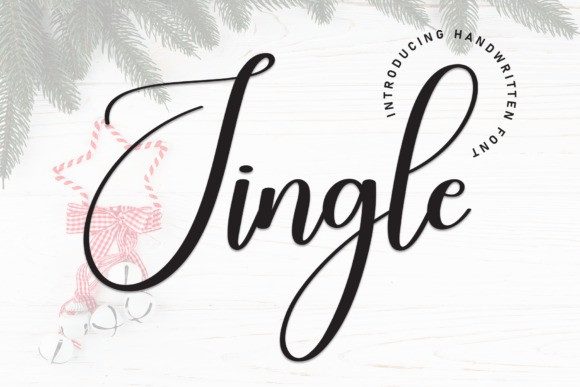
Jingle Font
Jingle Font is a modern and exquisite handwritten font. Stylish, graceful, and flowing, this font will definitely elevate the look of any of your beautiful creations while keeping them grounded and natural.